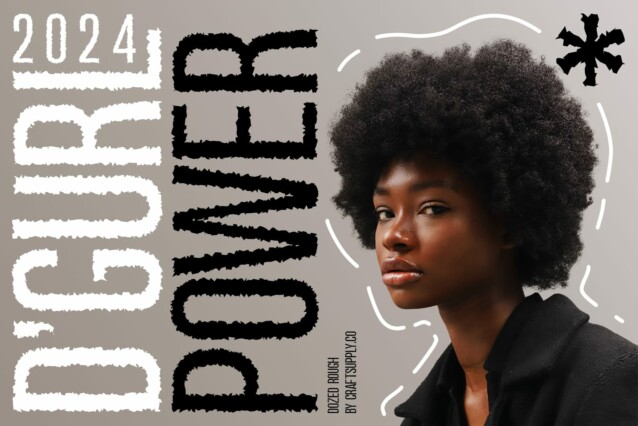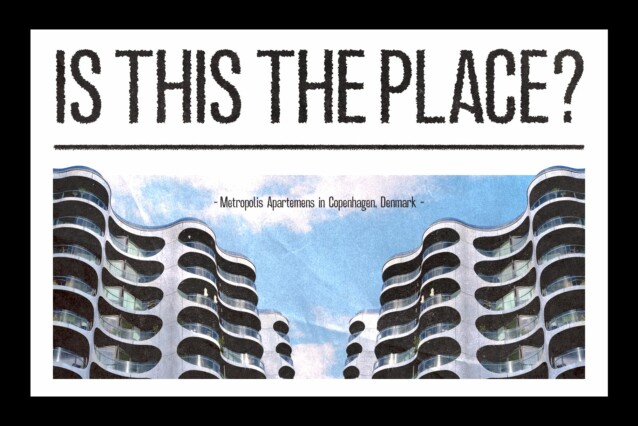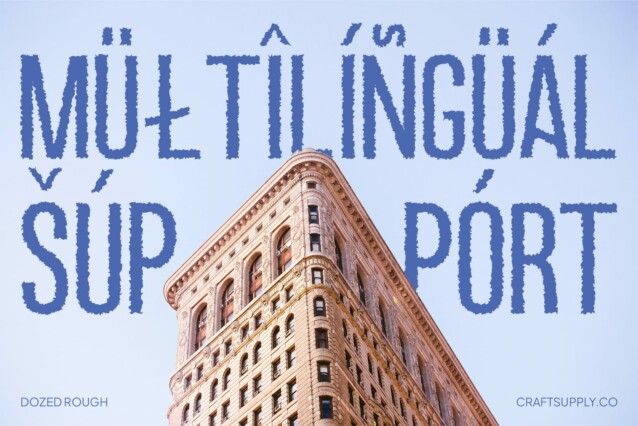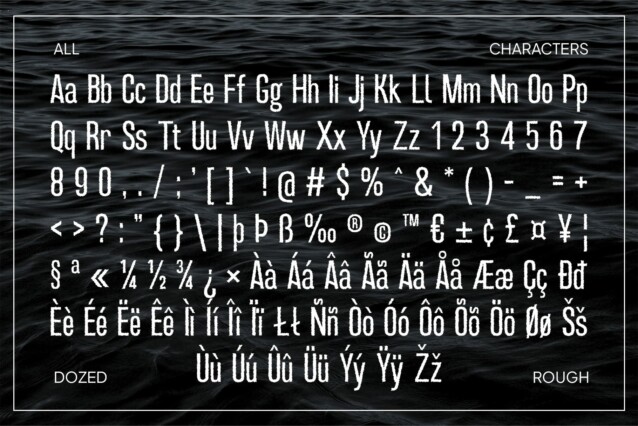
Dozed Rough Font
Dozed Rough Font is a condensed sans-serif font designed to convey a bold and unique impression. Its compact and modern sans-serif design ensures clarity and impact in any design application.
Intriguing Rough Texture
Adding to its distinctive appeal, Dozed Rough features an intriguing rough texture on its letters. This rough texture introduces a rugged dimension to the font, perfect for designs that seek to emphasize courage and uniqueness.